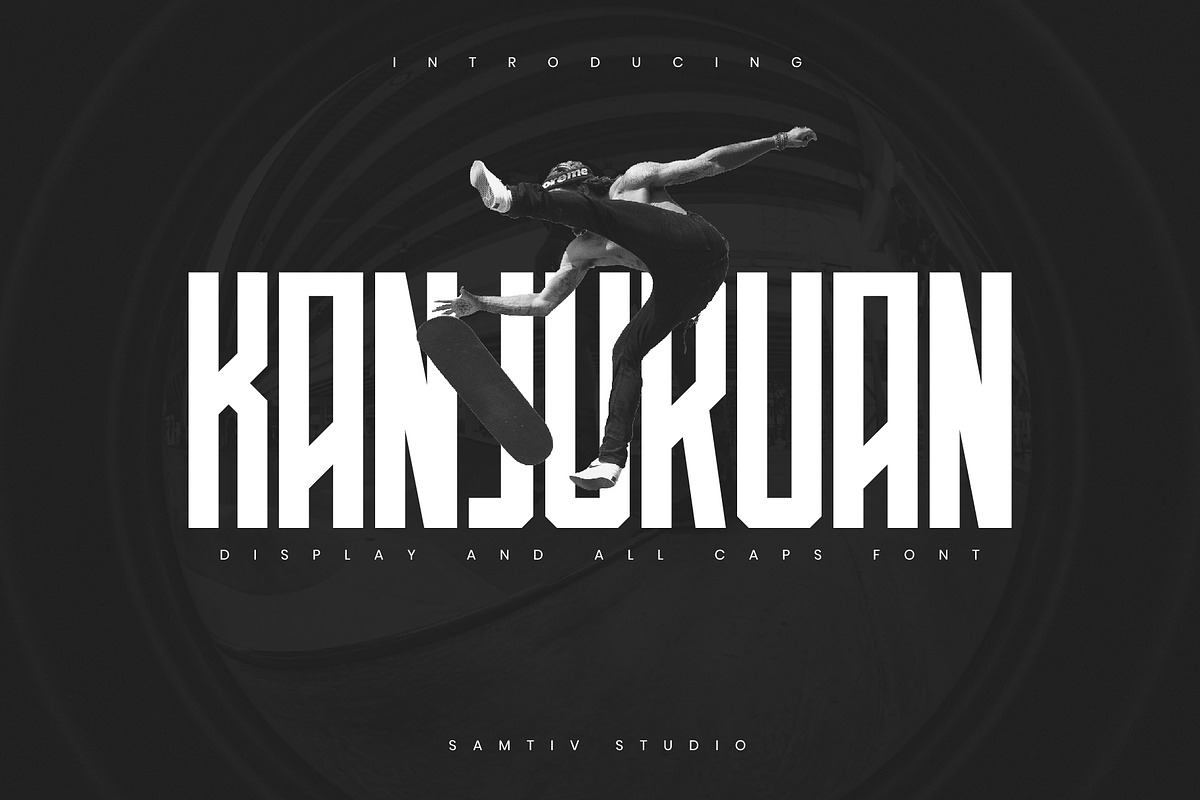
KANJURUAN - SPORT FONT DISPLAY Free Download
KANJURUAN – Sport Font Display Free Download
You must purchase this font for commercial use. However, you can download KANJURUAN – Sport Font Display Free Download for testing purposes. KANJURUAN is a powerful and dynamic display font built specifically for sports-themed designs. With its bold structure, sharp edges, and athletic energy, it’s perfect for team logos, jerseys, event posters, esports branding, merchandise, and high-impact headlines.
Designed to convey strength and motion, KANJURUAN delivers maximum visual impact with clean lines and assertive letterforms that grab attention. Whether you’re designing for a football club, gym brand, or action-packed marketing campaign, KANJURUAN – Sport Font Display Free Download helps you set the tone with confidence and adrenaline.